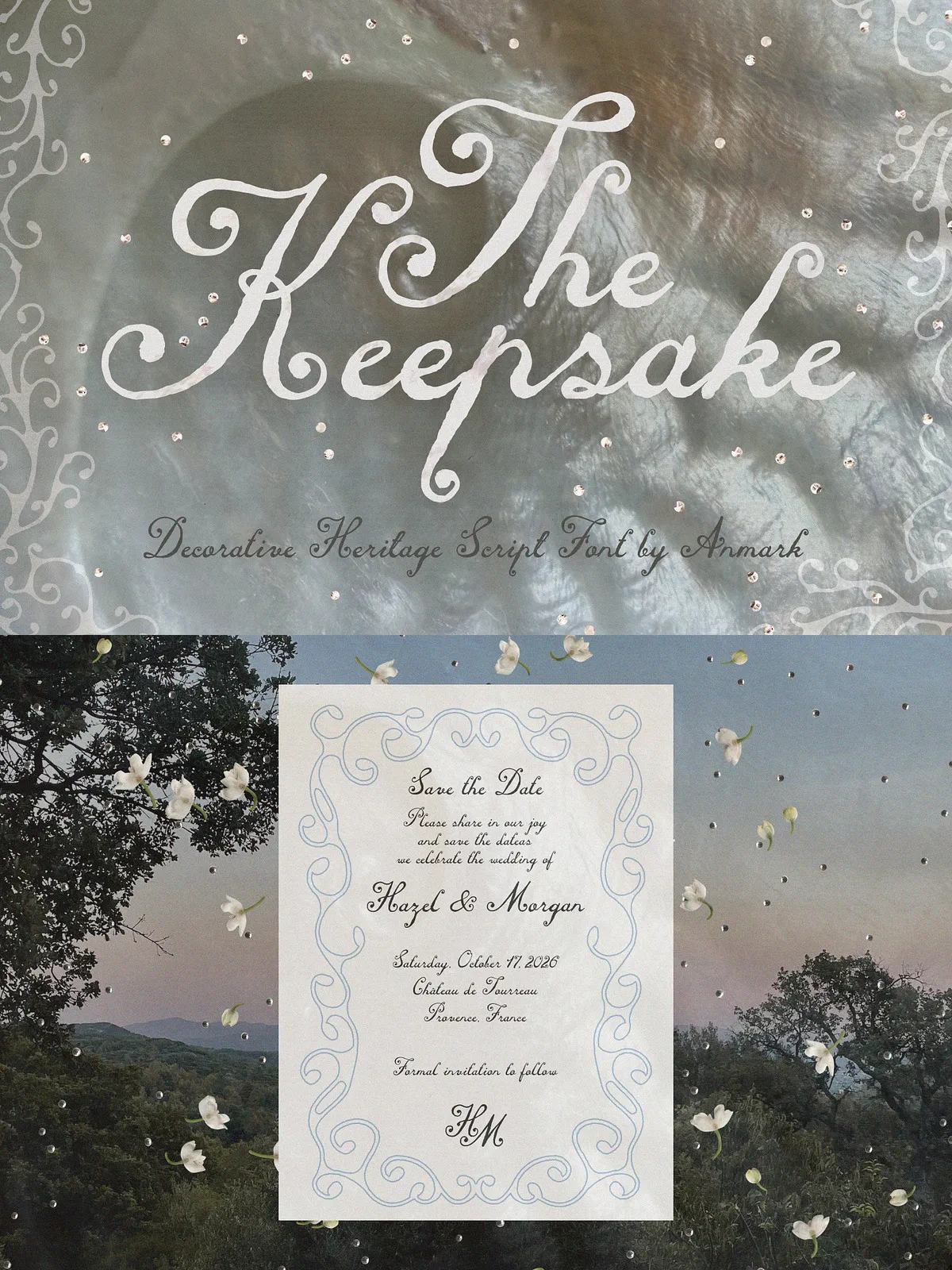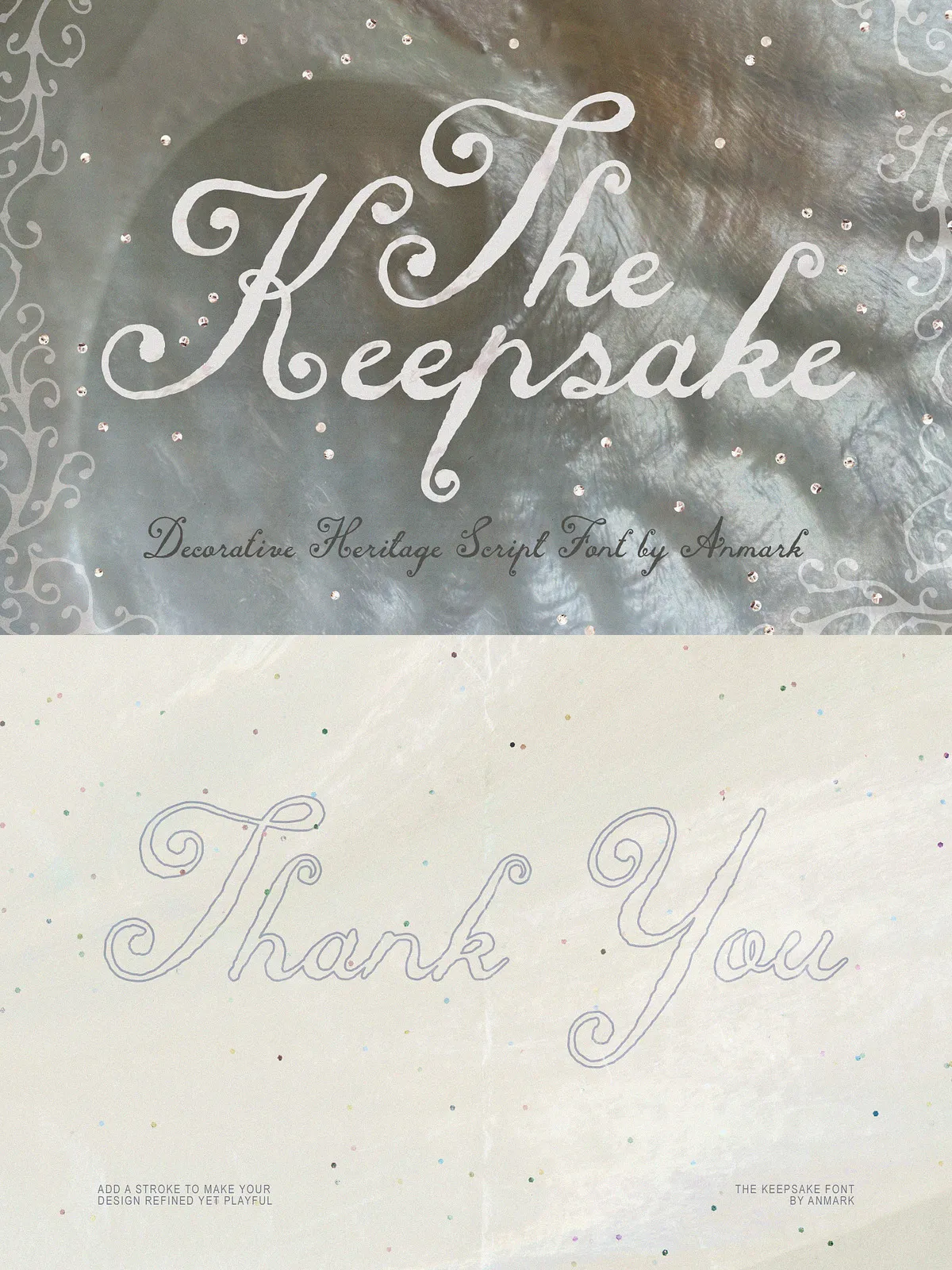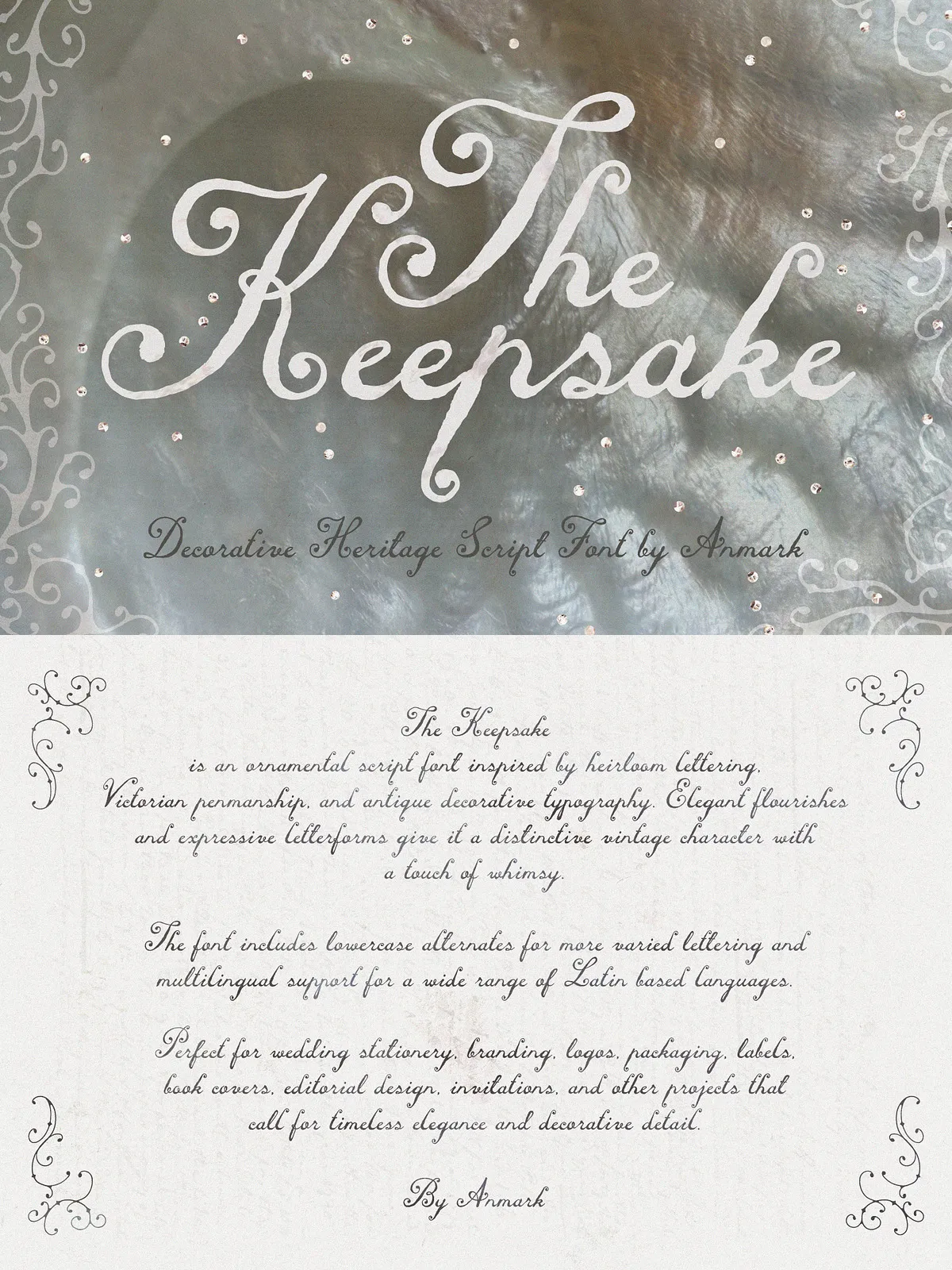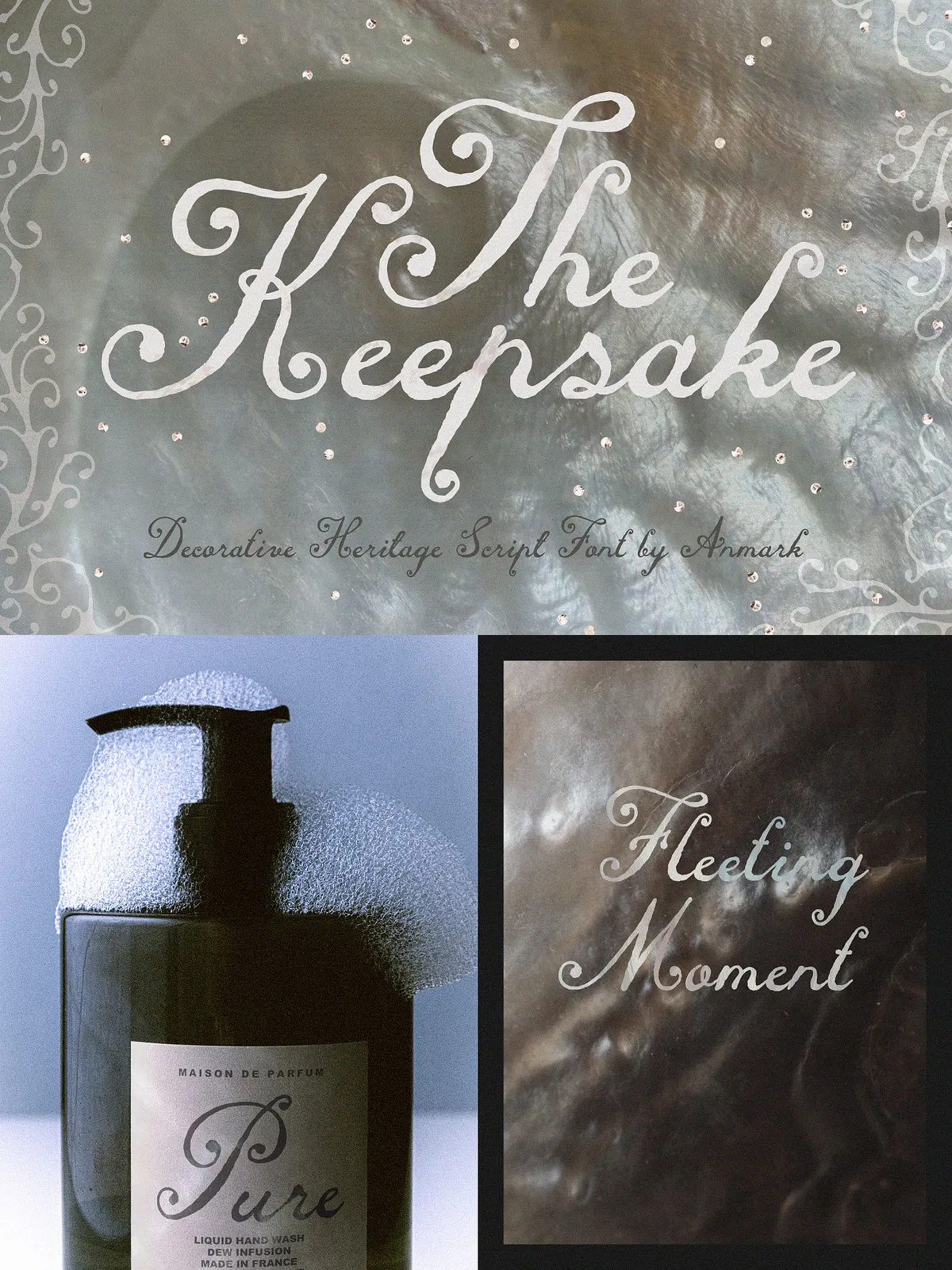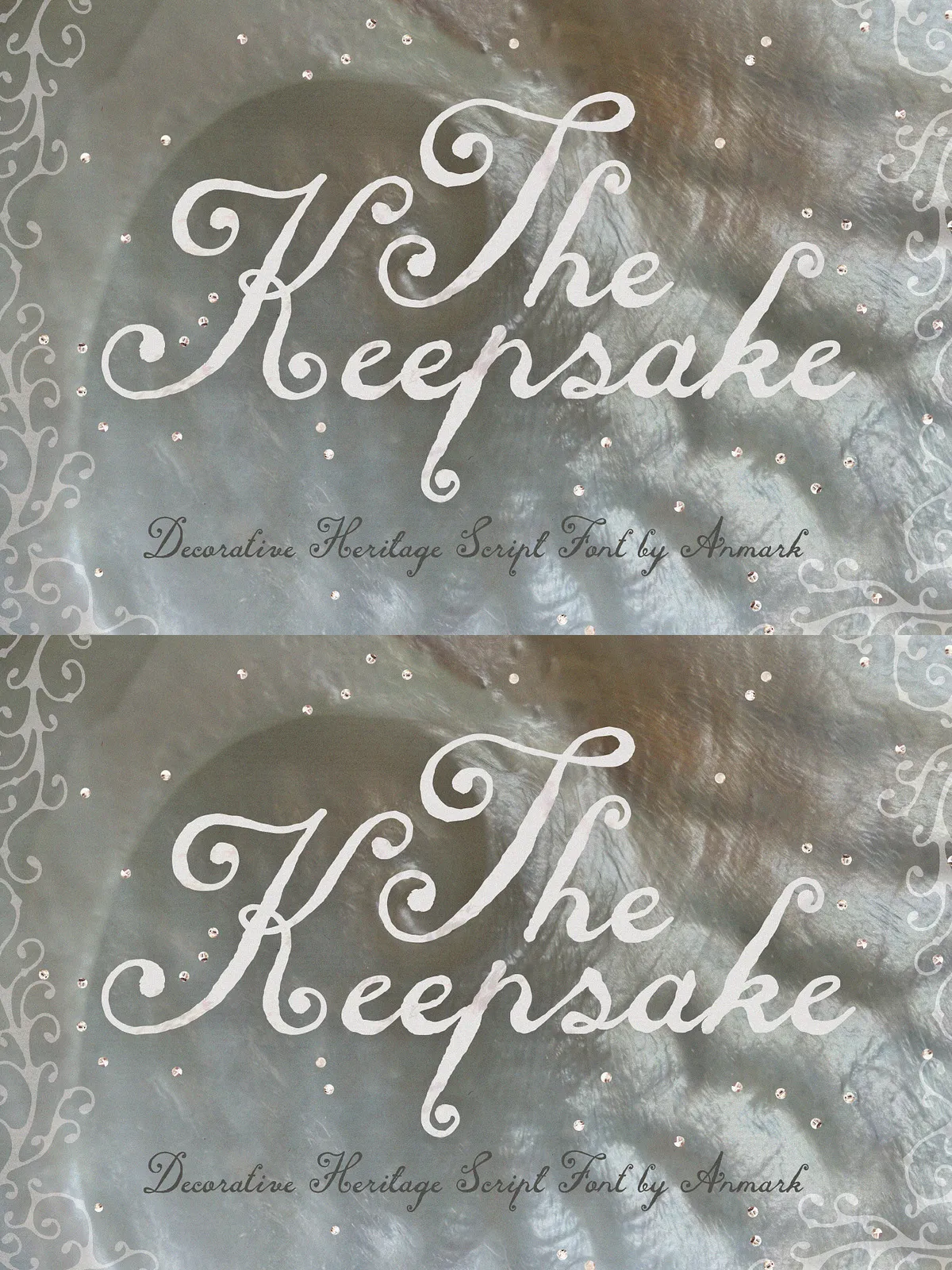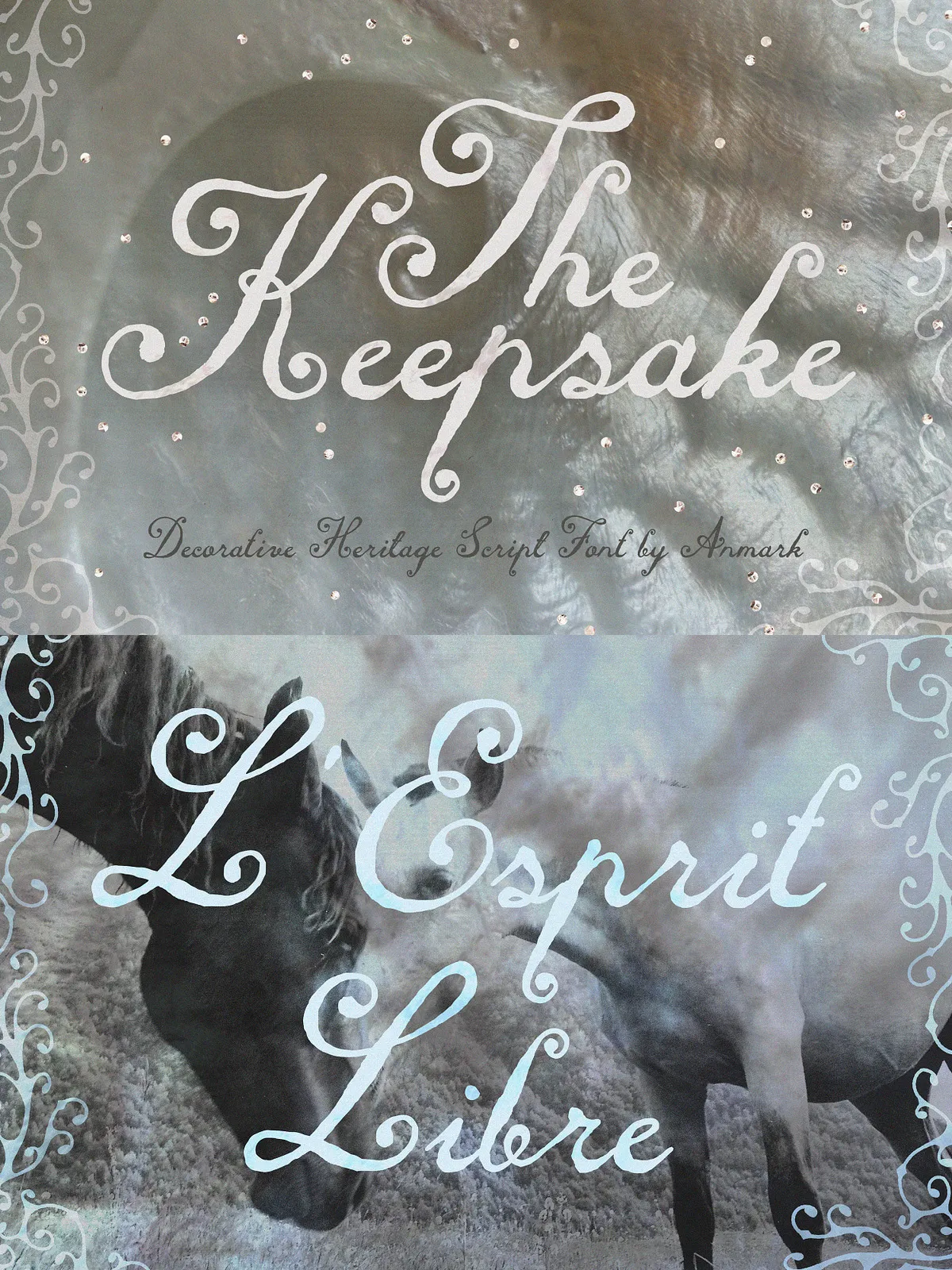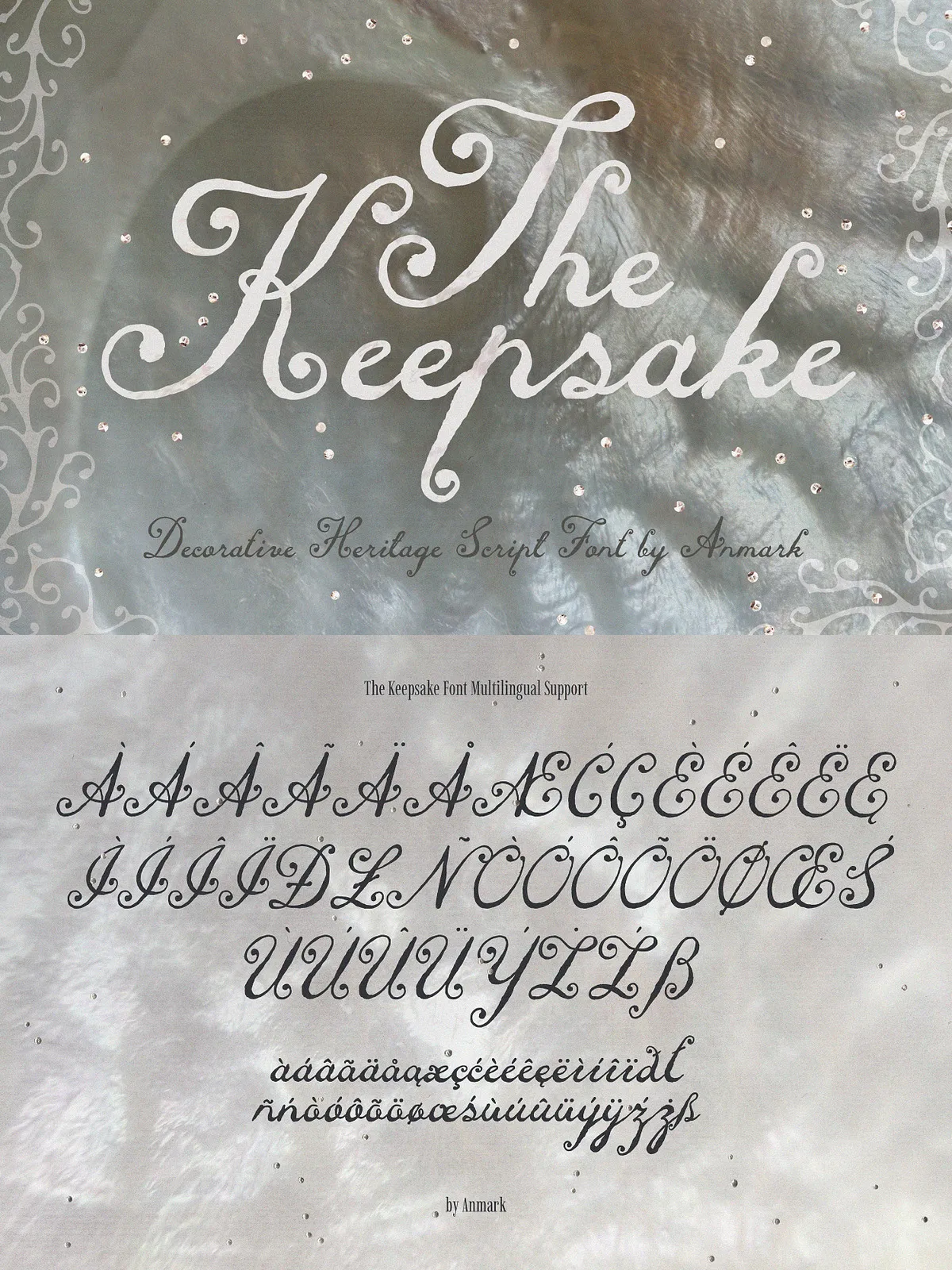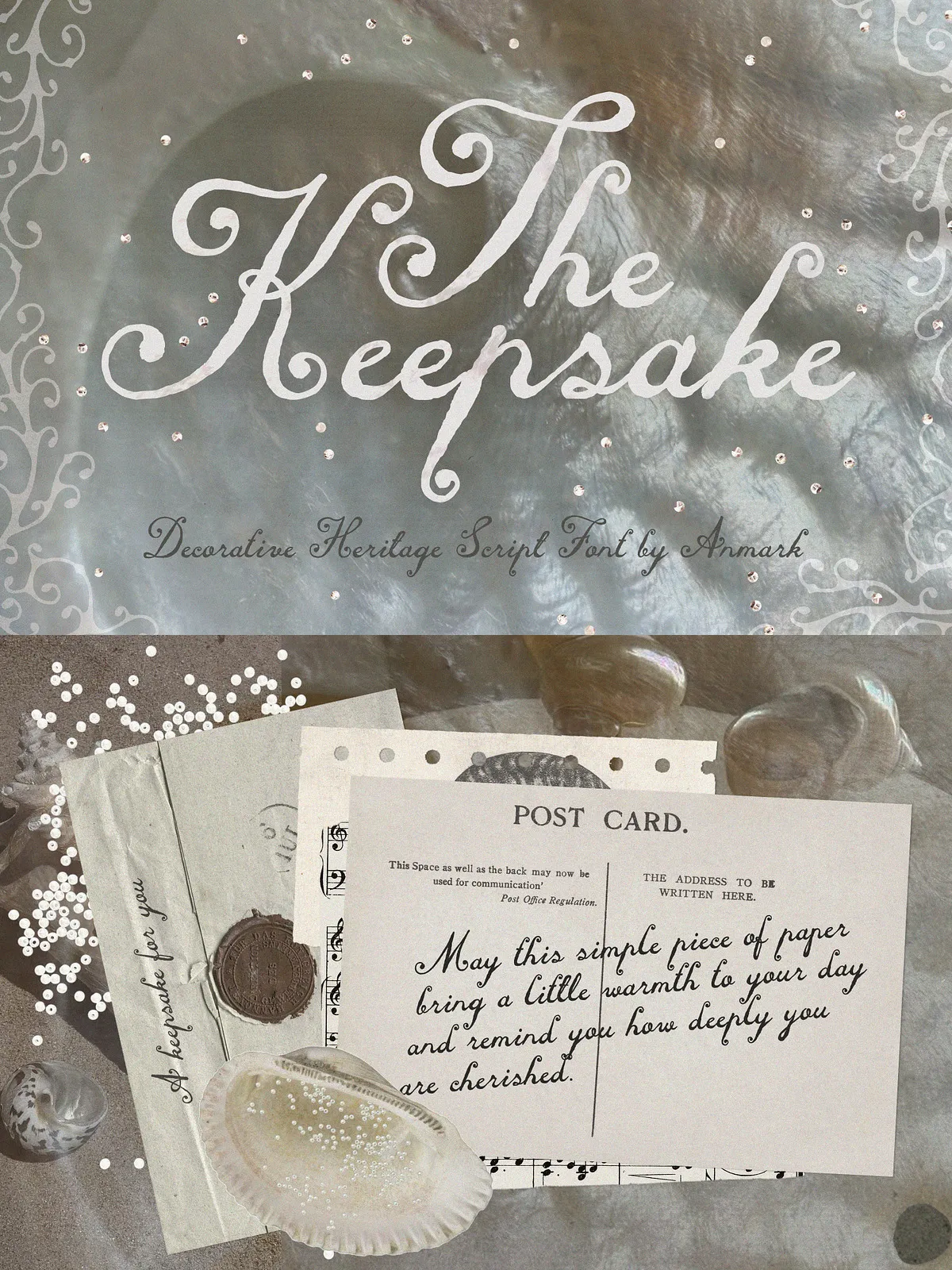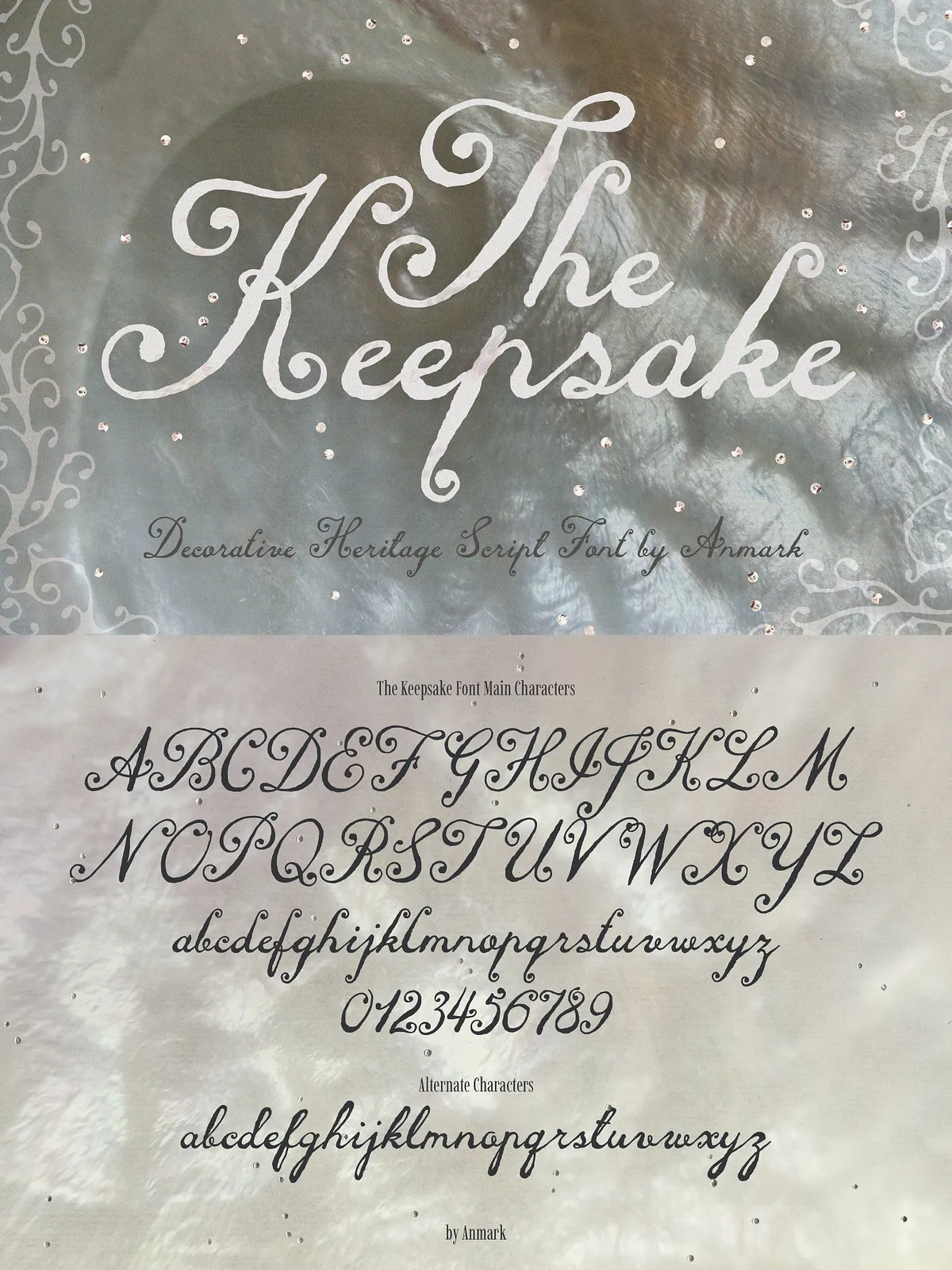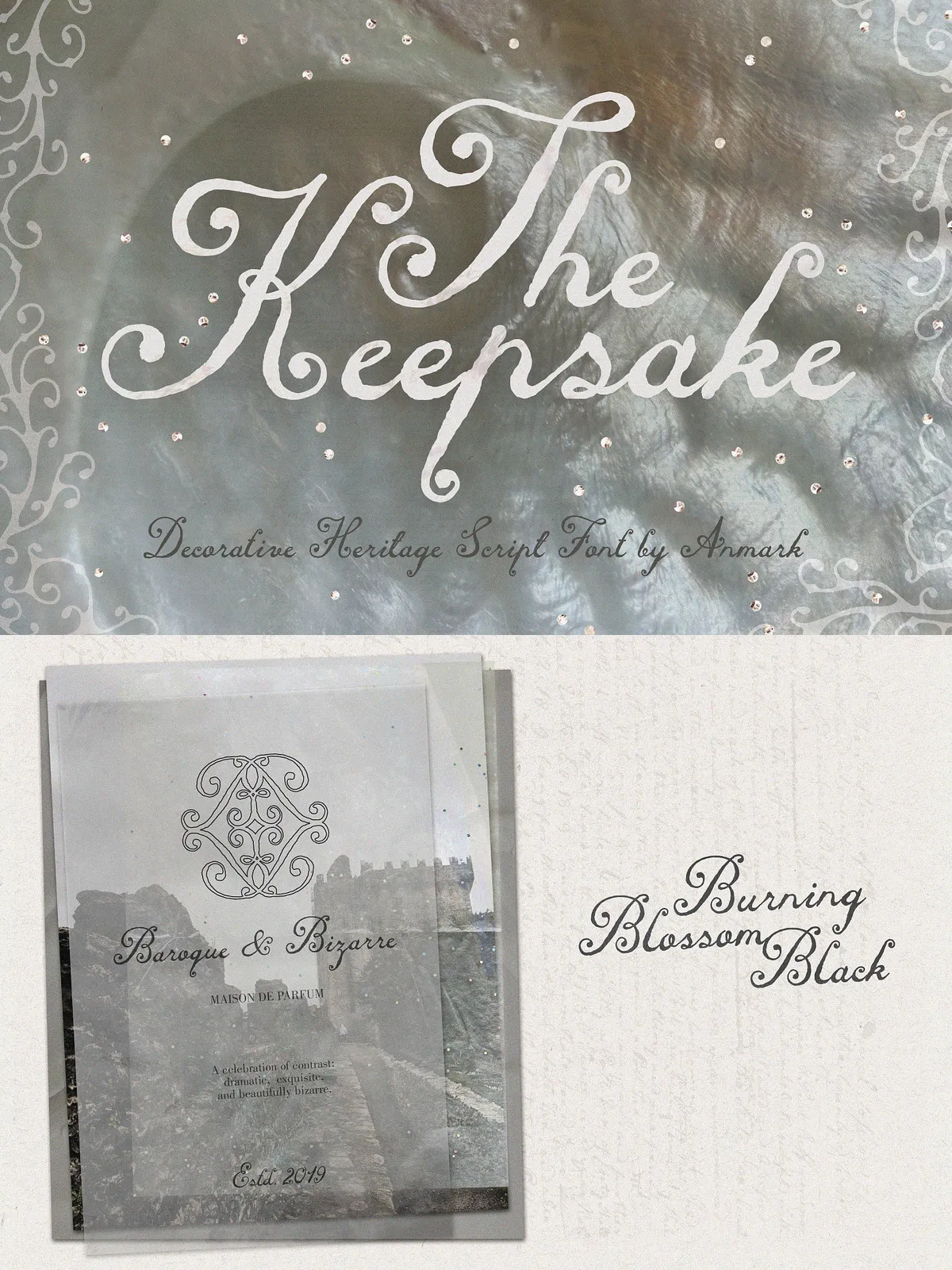
The Keepsake delivers a romantic, ornamental script voice built from carefully shaped letterforms and delicate flourishes. Inspired by heirloom keepsakes, antique storybooks, and traditional decorative lettering, this typeface balances expressive ornamentation with clear readability. Designers will find The Keepsake effective for projects that require nostalgic warmth, handcrafted detail, and a refined vintage aesthetic.
Design Character & Details
Romantic Curves and Whimsical Flourishes
The Keepsake emphasizes sweeping curves and playful terminal strokes that evoke a sense of nostalgia and handcrafted charm. Each glyph expresses motion: strokes sweep gracefully, joins resolve with subtle contrast, and ornamental swashes accentuate the text without overwhelming it. These features create an intimate, storybook tone that suits wedding suites, boutique brands, and editorial covers.
Lightly Textured Finish
Rather than leaning on heavy distressing, The Keepsake uses a subtle textured surface to suggest age and tactility while preserving letter clarity. The texture reads as a handcrafted artifact on print and digital mockups, giving designs an authentic, tactile presence that elevates packaging, stationery, and label work.
Features
- Uppercase and lowercase letters — full case support for flexible typography.
- Numbers and punctuation — complete numeral set and standard punctuation for professional layouts.
- Lowercase alternates — optional alternate glyph shapes to vary word rhythm and visual interest.
- Multilingual support — extended character set for western languages, enabling global usage.
Perfect For
Use The Keepsake whenever you want typography to communicate heritage, romance, or artisanal quality. Typical applications include:
- Wedding invitations and save-the-dates
- Boutique branding and logos
- Premium packaging and labels
- Book covers, editorial headers, and chapter openers
- Greeting cards, stationery, and gift tags
- Social media hero images and promotional graphics
- Vintage-inspired product collateral and signage
Usage Recommendations
Best Practices for Layout and Pairing
Apply The Keepsake as a display typeface: headlines, titles, logotypes, and short phrases. Because its ornate details draw attention, pair it with a clean sans-serif or a restrained serif for body copy to maintain hierarchy and legibility. When setting multi-word lines, use tighter tracking for cohesive word shapes, and slightly increase line-height where flourishes might collide.
Color, Texture, and Printing
Choose restrained color palettes and premium paper stocks to maximize the font’s vintage impression. The Keepsake responds well to subtle foil, letterpress, and emboss finishes in print. On screen, combine the font with soft grain or paper textures to convey tactility while preserving readability at common display sizes.
Why Choose The Keepsake
The Keepsake combines expressive ornamentation with careful typographic control. It activates emotional resonance while remaining practical for real design production. Designers choose The Keepsake when they need typography that acts as a visual heirloom: memorable, elegant, and handcrafted. Its alternates and multilingual support allow flexible creative expression across invitations, packaging, and brand systems.